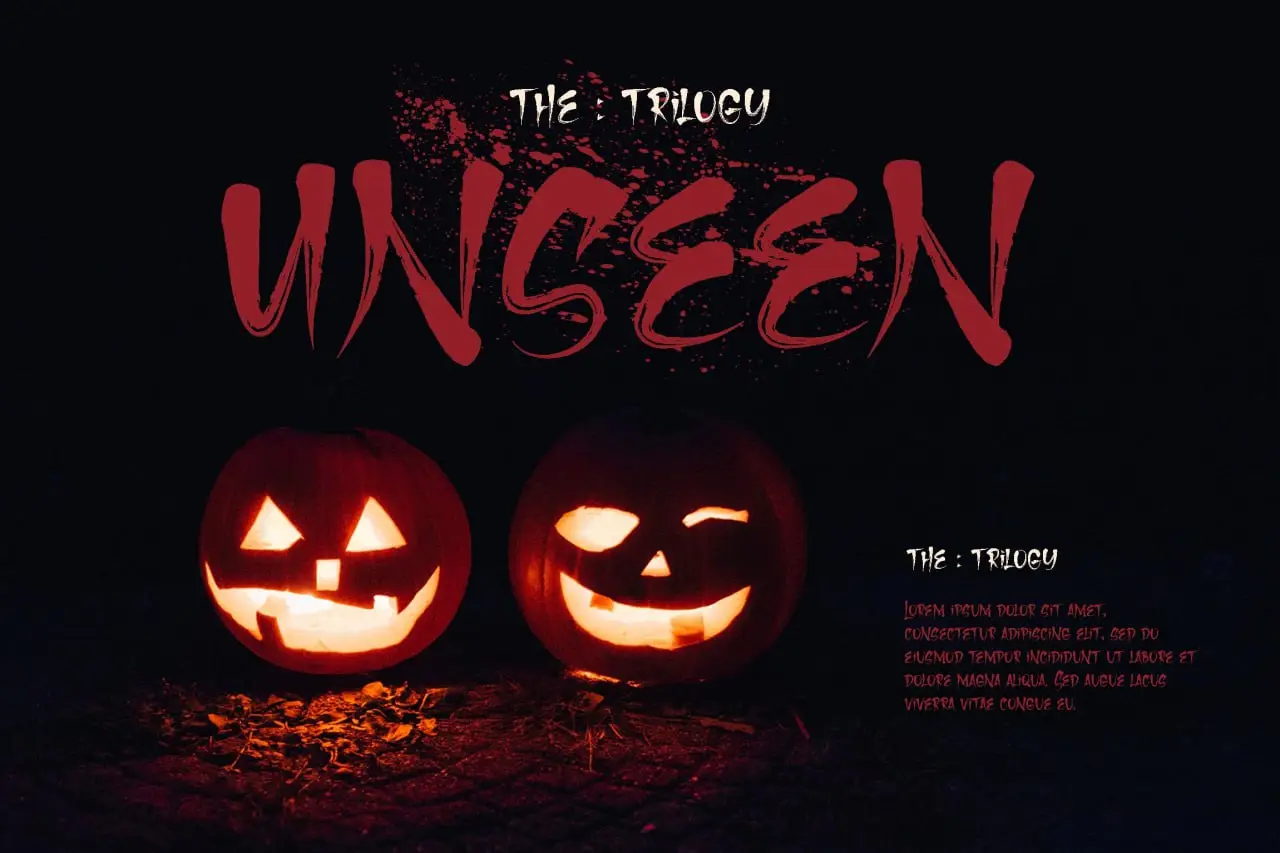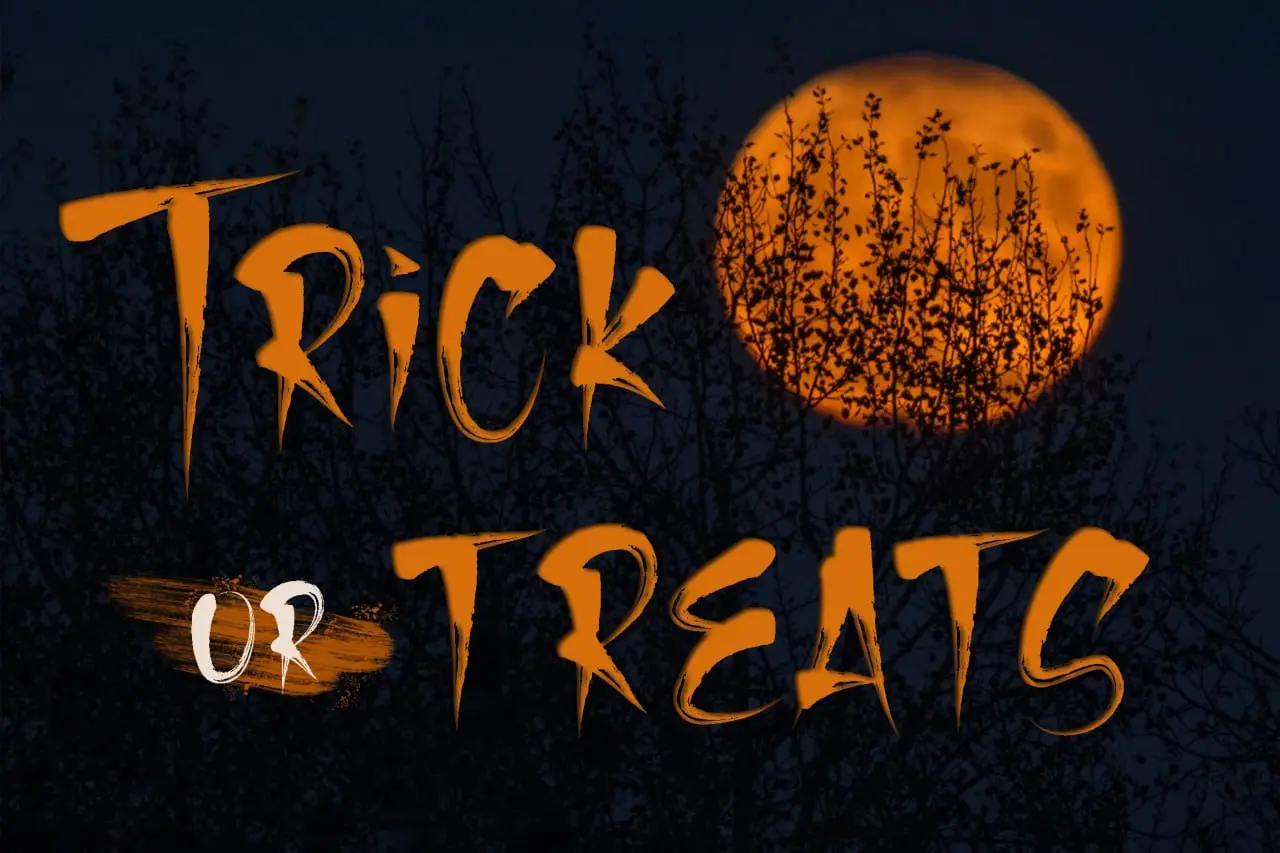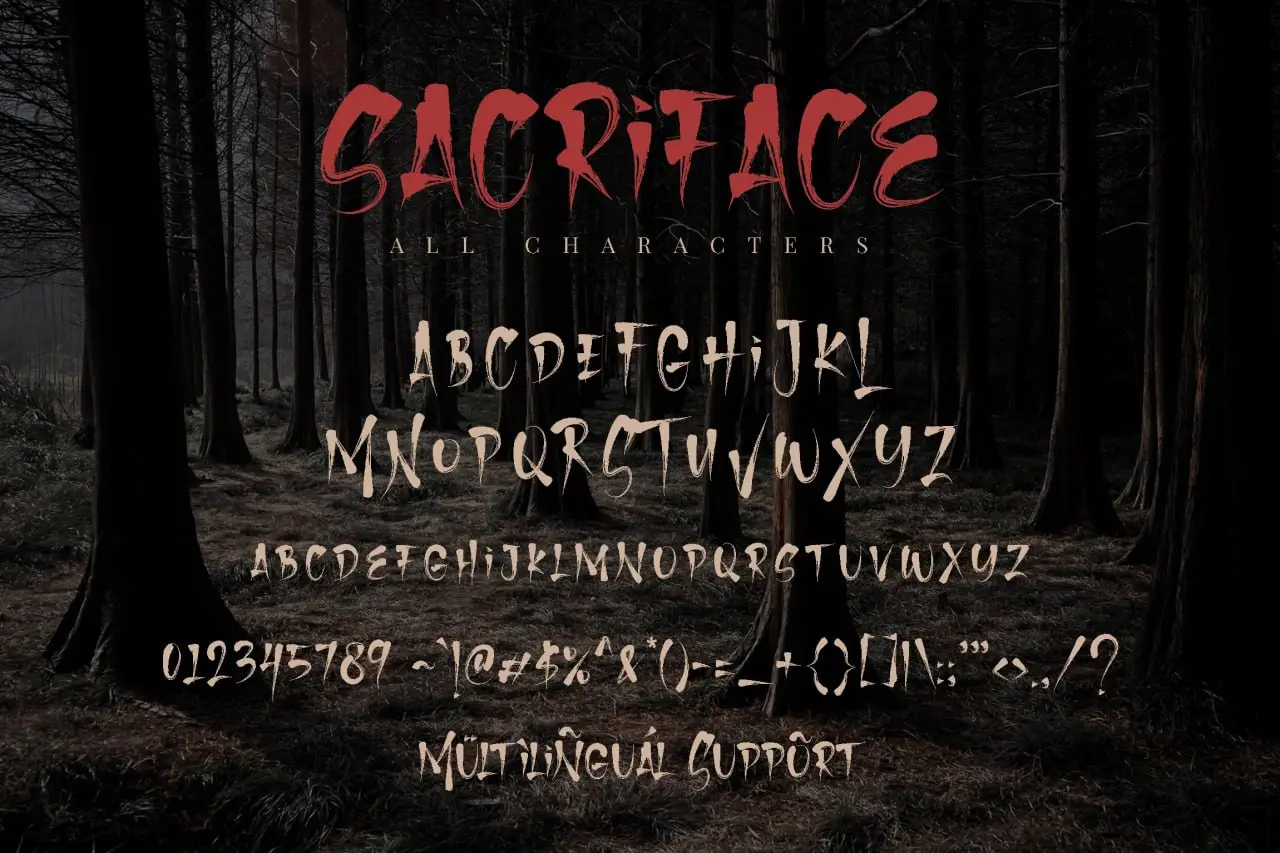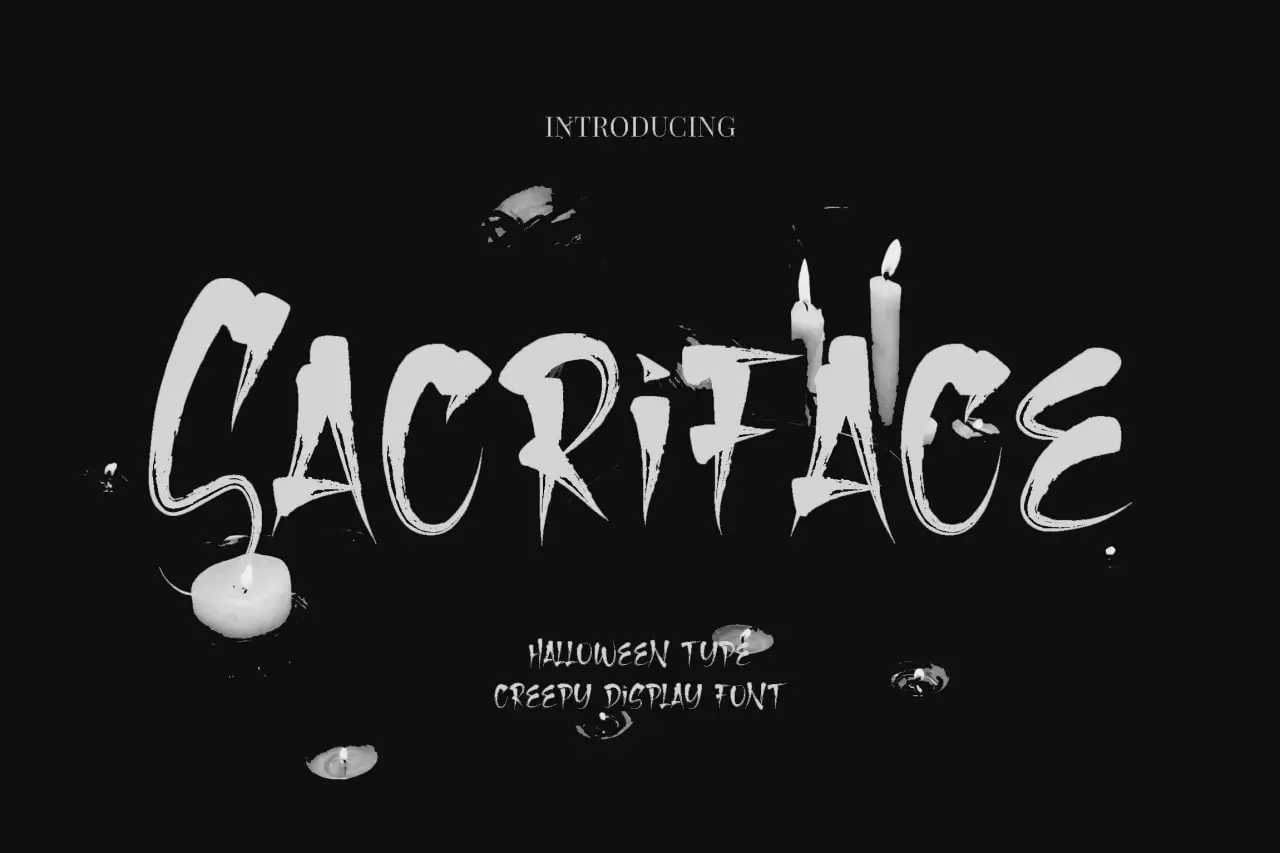
The Sacriface-Black Metal Font is a striking typeface designed to embody the raw energy and aesthetic of black metal music. With its sharp edges and intricate detailing, this font is perfect for creating bold, impactful designs.
- Unique black metal style with sharp, jagged edges
- Multiple weights for versatile design options
- Includes uppercase and lowercase letters, numbers, and symbols
- Ideal for branding, album covers, and merchandise related to music
- Great for posters, flyers, and any design that needs a dark, edgy vibe
Sacriface-Black Metal Font